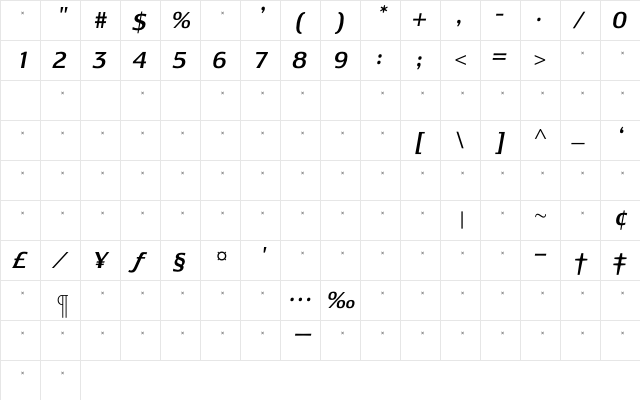
LesmoreMediumItalicTab Regular
Design Context for LesmoreMediumItalicTab
LesmoreMediumItalicTab is a composed and adaptable typeface that performs quietly and consistently across a wide range of design contexts. The slanted form adds forward momentum and visual energy.
Pro Tip: Use LesmoreMediumItalicTab for emphasis, pull quotes, and subheadings where its slanted energy can add rhythm to the layout.